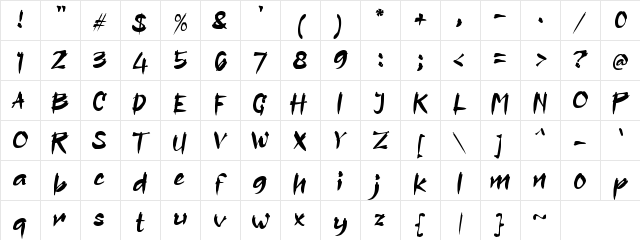
Complete aAssassinNinja Regular glyph index. Displaying only characters natively supported by aAssassinNinja Regular font.
aAssassinNinja is a composed and adaptable typeface that performs quietly and consistently across a wide range of design contexts.